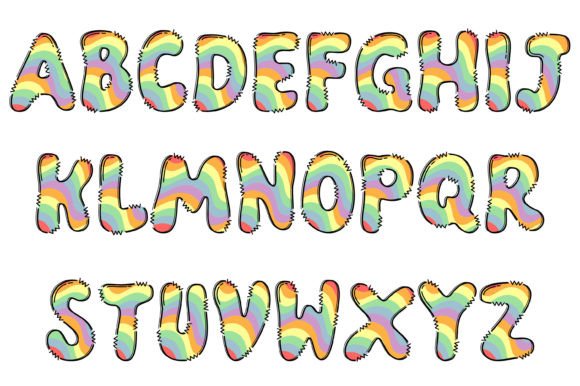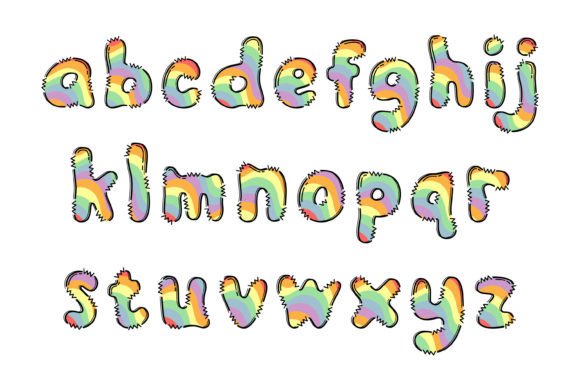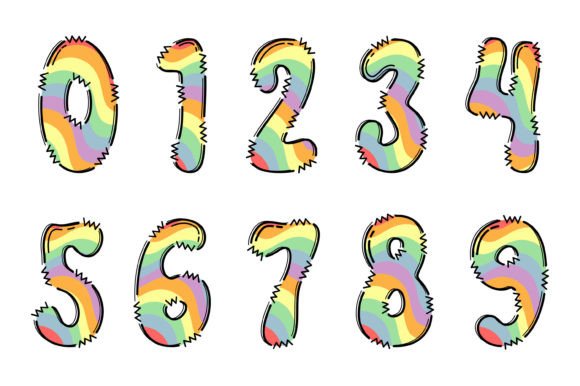
Introduction to Pastel Rainbow Font
Have you ever been stuck in a design rut, searching for the perfect font to bring your creative project to life? Maybe you’ve scrolled through countless font options, only to end up with something that just doesn’t quite capture the essence of your vision. Well, say hello to the Pastel Rainbow Font – a game-changing design resource that’s sure to add a touch of magic to your work.
This delightful color font is a masterclass in soft, soothing hues, featuring a spectrum of pastel colors that will transport your audience to a world of whimsy and wonder. Whether you’re designing a set of invitations, creating eye-catching social media graphics, or simply looking to add a touch of personality to your brand, the Pastel Rainbow Font is the perfect high-quality design companion.
Key Features of Pastel Rainbow Font
- High-Quality Design Resource: The Pastel Rainbow Font is a beautifully crafted design resource ideal for creative projects, offering a unique and eye-catching aesthetic.
- Transparent Background: This font features a transparent background, making it perfect for use on images, videos, or other design elements with complex backgrounds.
- Perfect for Digital Art: The Pastel Rainbow Font is specifically designed for digital art and creative projects, making it an excellent choice for artists, designers, and animators.
Honest Review: Pastel Rainbow Font
I recently stumbled upon the Pastel Rainbow Font and I must say, it’s a breath of fresh air in the world of design resources. As a designer, I’m always on the lookout for unique and high-quality fonts to elevate my creative projects.
Here’s what works well: ✨ The Pastel Rainbow Font is incredibly versatile and can be used for a wide range of designs, from digital art to print materials. The font’s pastel colors are soothing and visually appealing, making it perfect for designs that require a touch of whimsy. The transparent background option is also a huge plus, allowing me to easily layer the font over any background image or color.
However, there are some limitations to consider: ⚠️ The font may not be suitable for all types of designs, particularly those that require bold or dramatic typography. Additionally, the font’s pastel colors may not be as vibrant or eye-catching as some designers might prefer.
- High-quality, transparent background
- Unique pastel colors
- Suitable for digital art, print materials, and more
Tips for Getting the Most Out of Pastel Rainbow Font
The Pastel Rainbow Font is ideal for use in design projects that require a playful and whimsical touch. It’s perfect for birthday invitations, wedding decorations, and children’s party materials. The font is also available for free download, making it an excellent choice for designers on a budget.